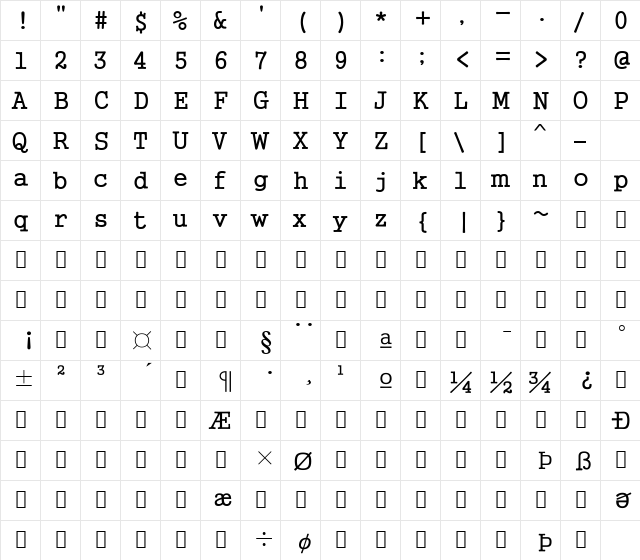
HYGungSo-Bold Regular
Design Context for HYGungSo-Bold Typeface
HYGungSo-Bold takes a measured approach to typography — its balanced proportions and neutral character make it a reliable workhorse for both digital and print work. Its bold stroke weight gives it real presence on the page.